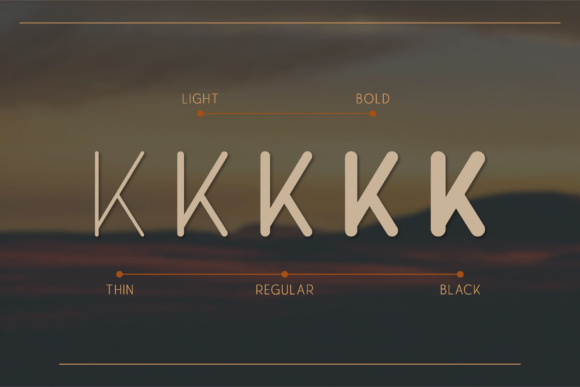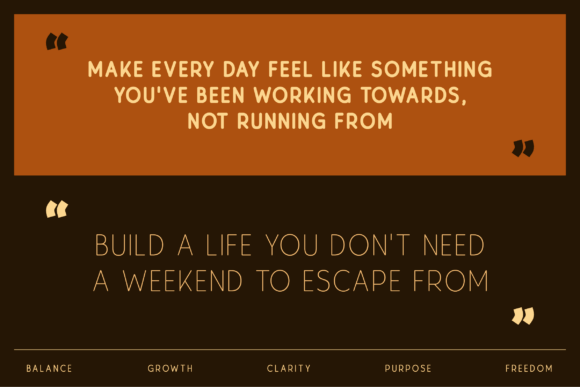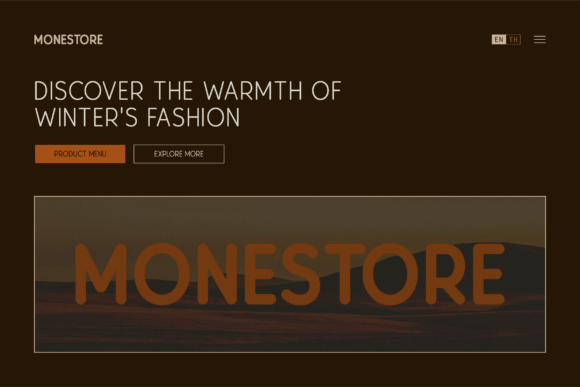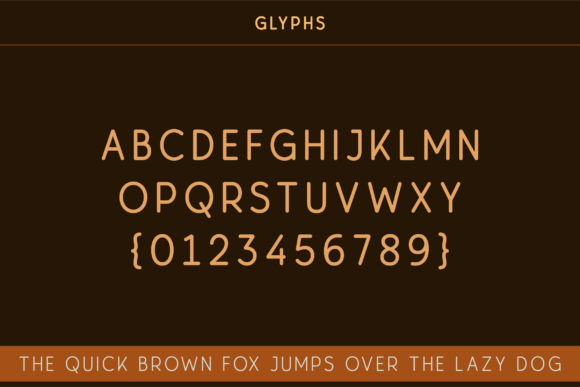
Introduction to Penacous Rounded Font
Have you ever stared at a blank canvas, trying to bring your creative vision to life? The perfect font can be the missing piece that makes your design pop. That’s where Penacous Rounded Font comes in – a modern all-caps sans serif font family designed to add clarity, warmth, and bold personality to your creative projects.
As designers, we know that a well-chosen font can make all the difference in our work. That’s why we’re excited to introduce you to Penacous Rounded Font, a high-quality design resource that’s perfect for building a clean yet friendly visual identity. With its soft-rounded edges and sleek, geometric construction, this font family adapts beautifully to any project, from logos and packaging design to social media visuals and high-impact headlines.
Key Features of Penacous Rounded Font
- High-quality design resource ideal for creative projects requiring a unique, rounded aesthetic.
- Penacous Rounded Font features a transparent background, allowing for seamless integration with various design elements.
- With a resolution of 300 DPI, this font is suitable for high-resolution printing and digital applications.
- Characteristics include a rounded, modern design and a wide range of glyphs, making it an excellent choice for creative projects.
- Perfect for designers seeking a distinctive, high-quality design resource for their creative projects.
Honest Review: Penacous Rounded Font
I recently came across the Penacous Rounded Font, and I must say it’s a hidden gem in the world of design resources. The first thing that caught my attention was the sleek and modern design of the font, which would be perfect for a creative project that requires a touch of elegance.
Here are some of the things that work well with the Penacous Rounded Font:
- ✨ Versatile font that can be used for both digital and print media
- ✨ Transparent background, making it easy to use with any design
- ⚠️ Limited character set, which may not be suitable for longer texts
- ⚠️ Not as extensive as some other font libraries
Common Use Cases for Penacous Rounded Font